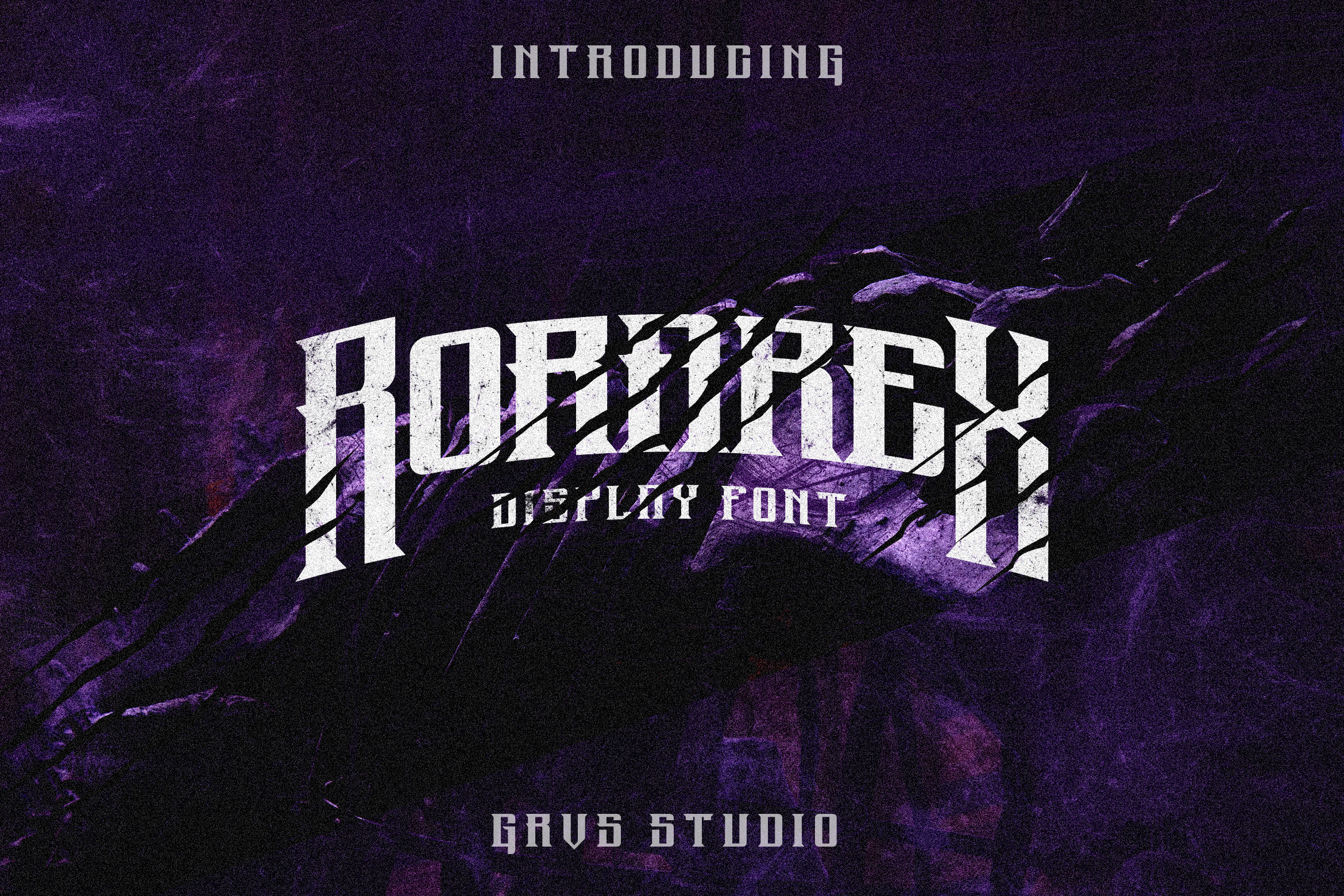
Rorarex Font
GRVS RoraRex Font, is our new item that is suitable for your team logo, or community logo.
Great for Logo, Sticker, Jersey, Invitation Card, Brochures, etc.